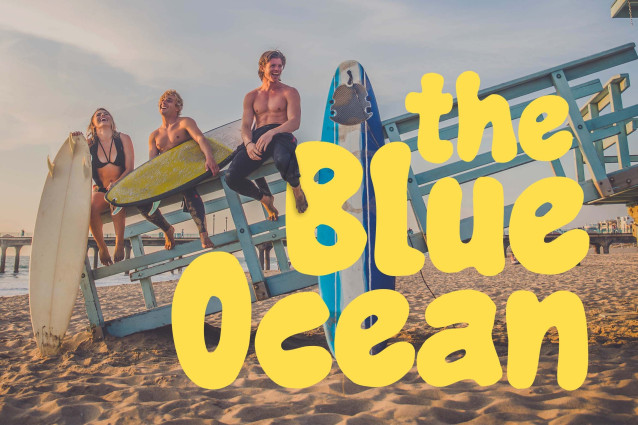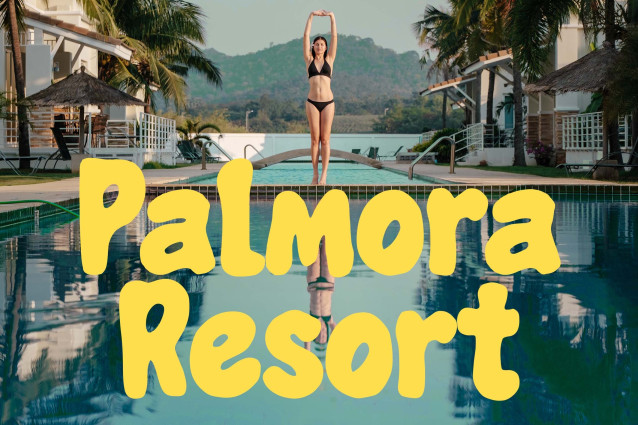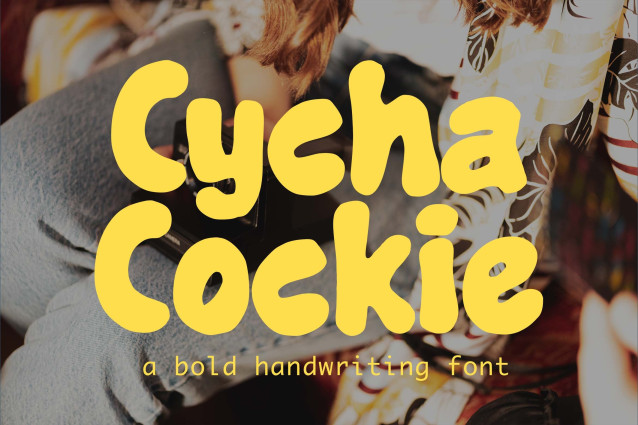
Cycha Cockie Font a bold handwriting font is made for any professional project branding, such as logotype, watermarks, poster, branding, promotions, product packaging, etc.
Cycha Cockie font includes a full set of unique uppercase and lowercase letters, numerals and punctuation. This font has a unique style. See the previews above to get some inspiration on how to use them.